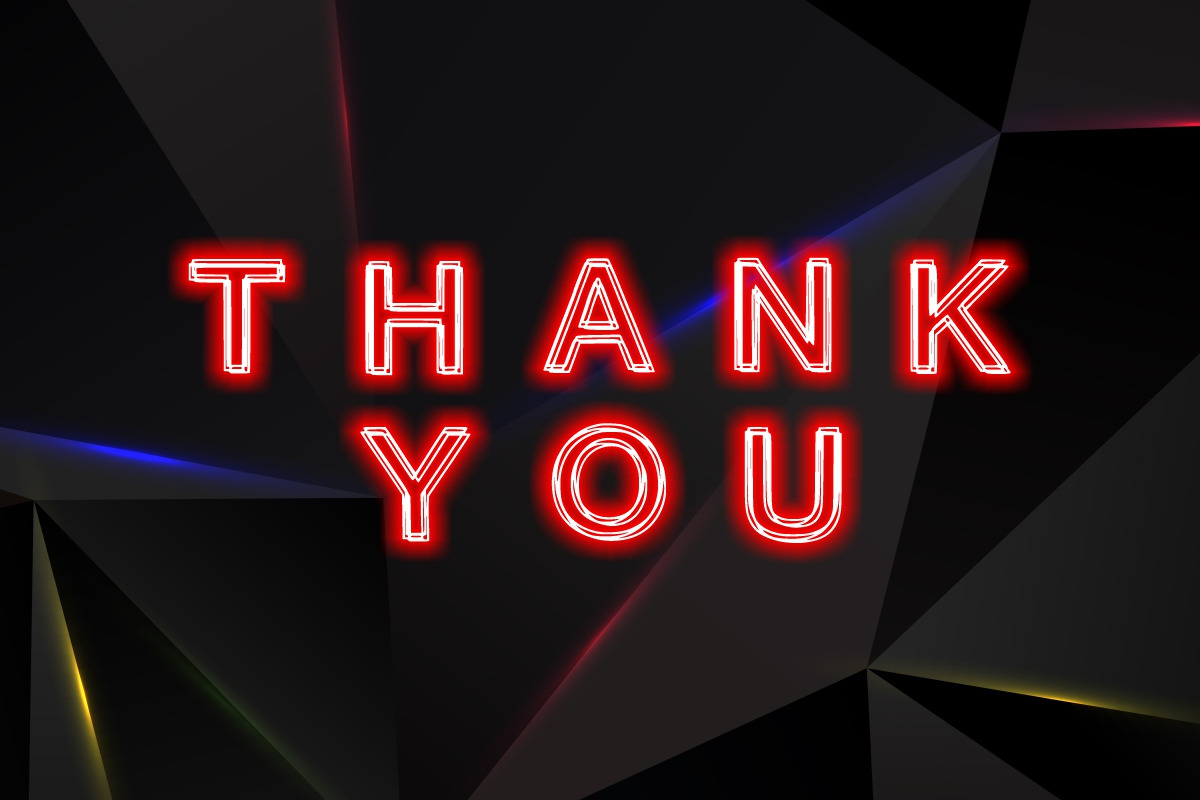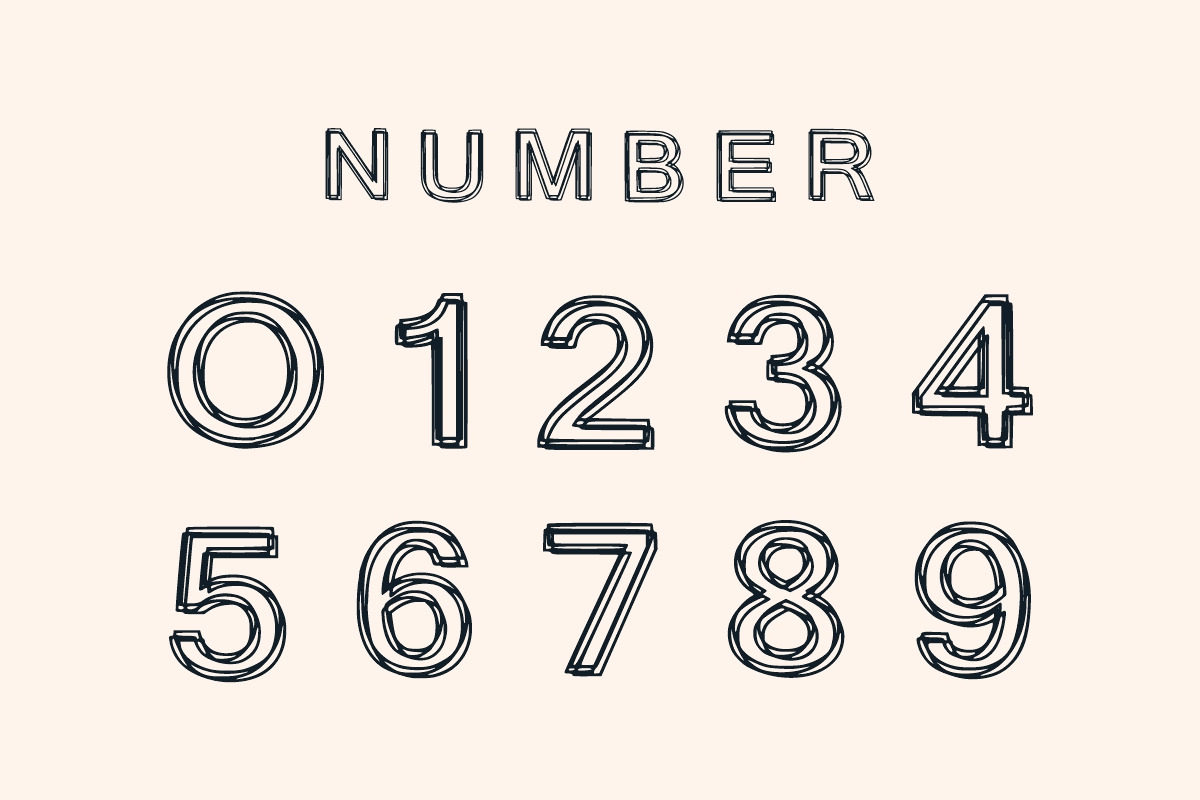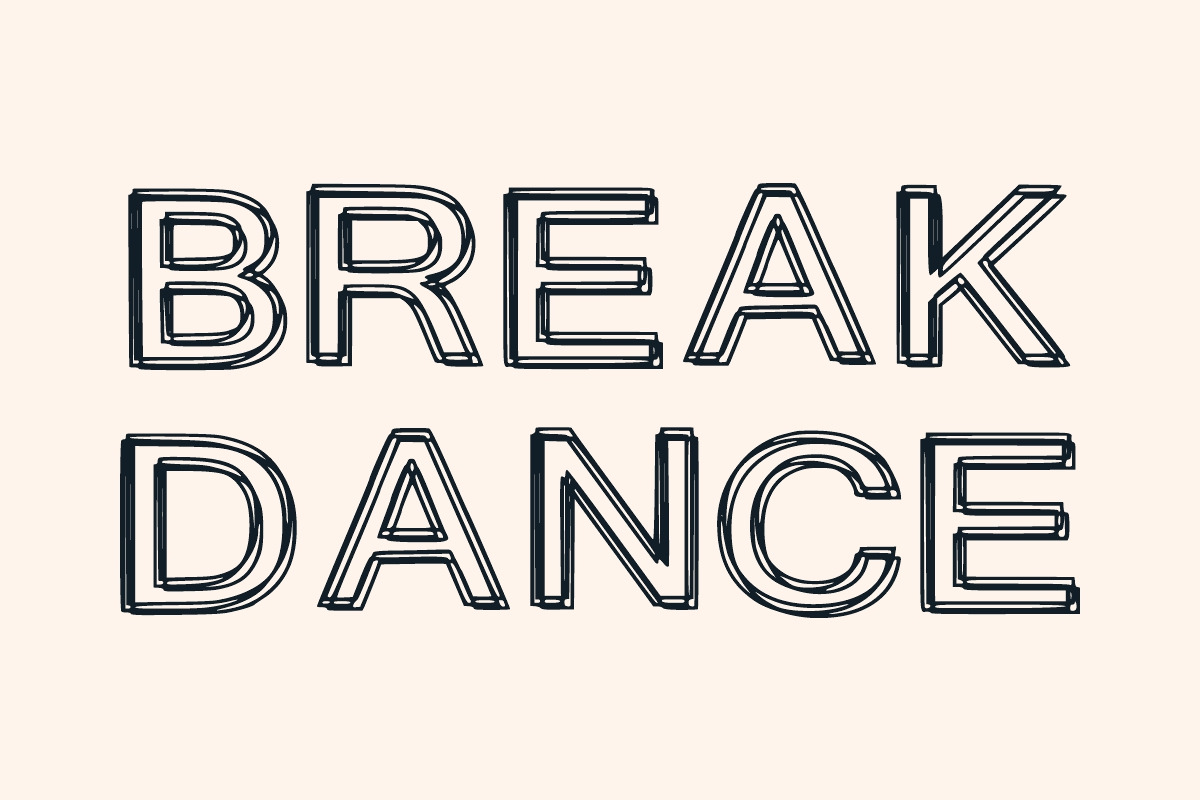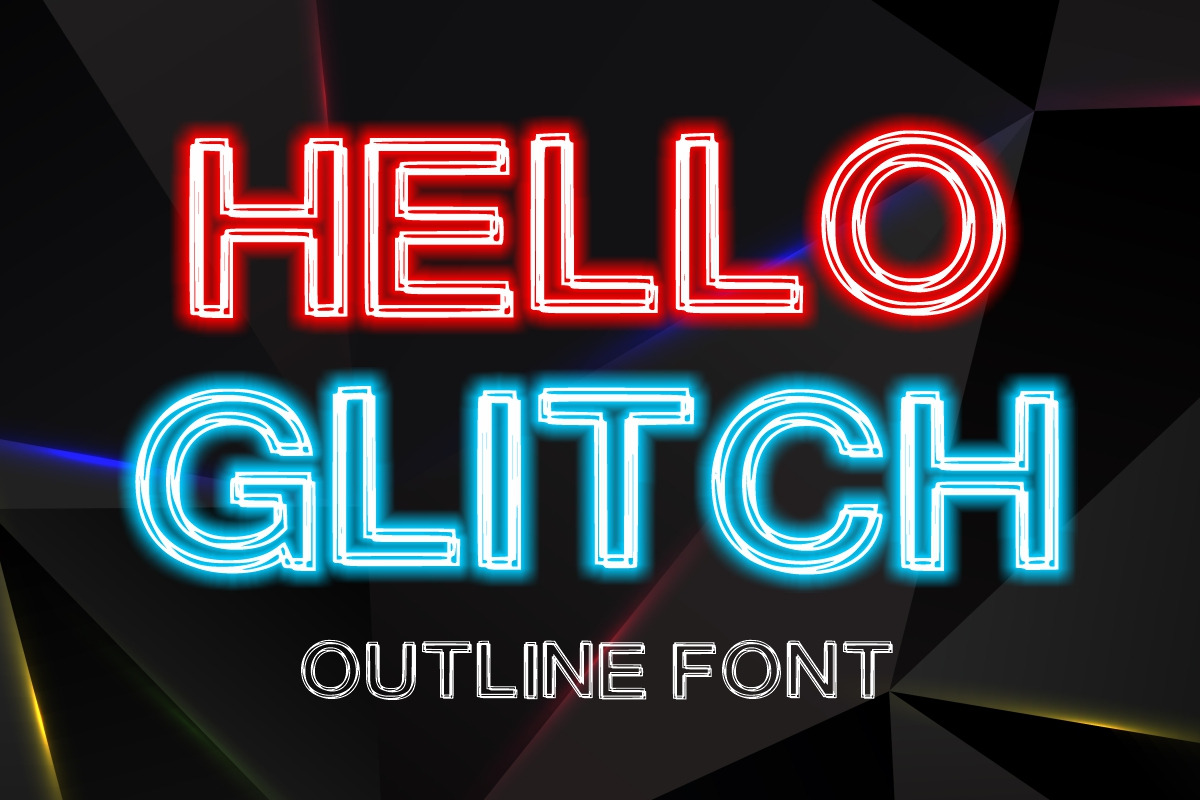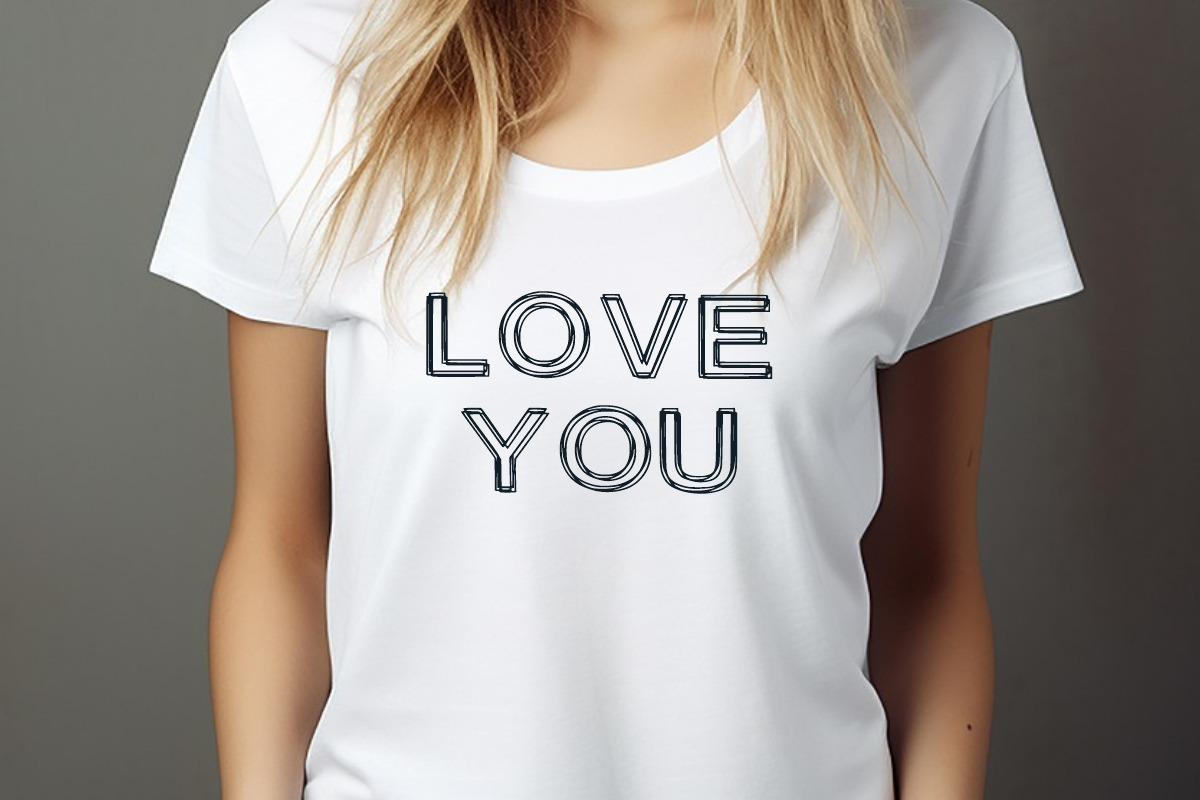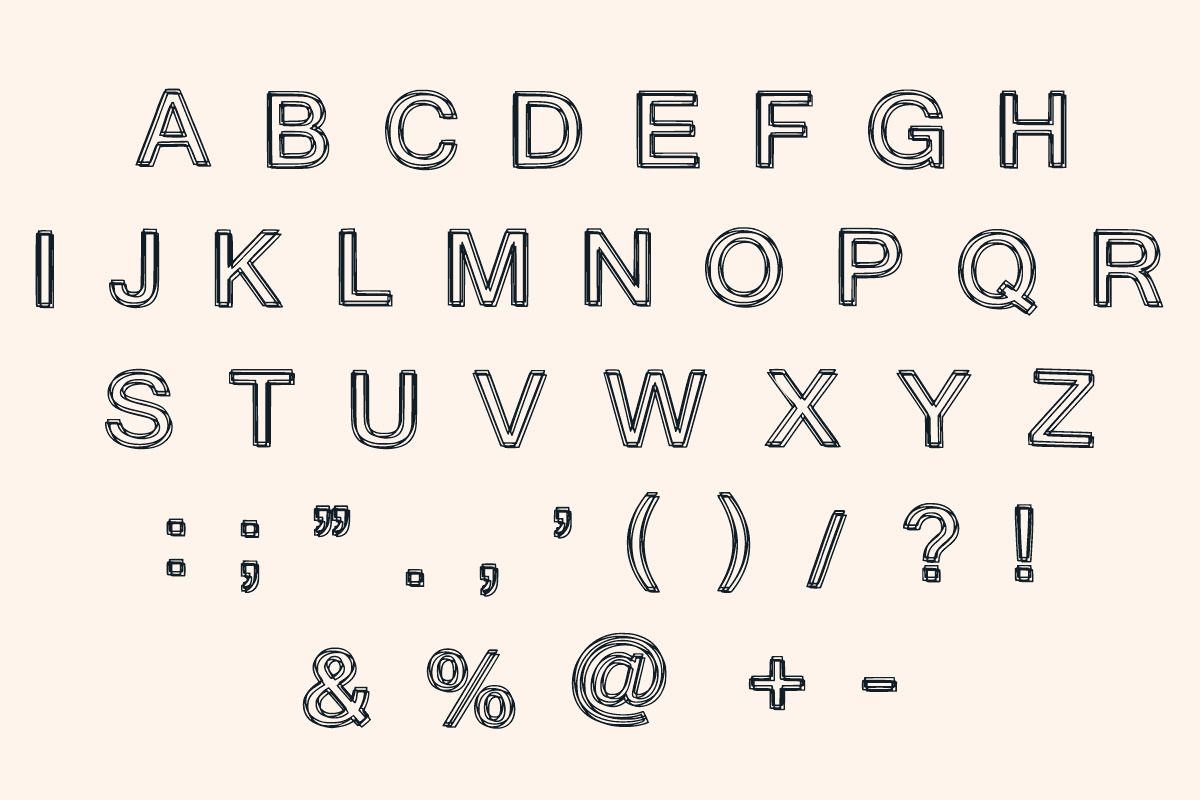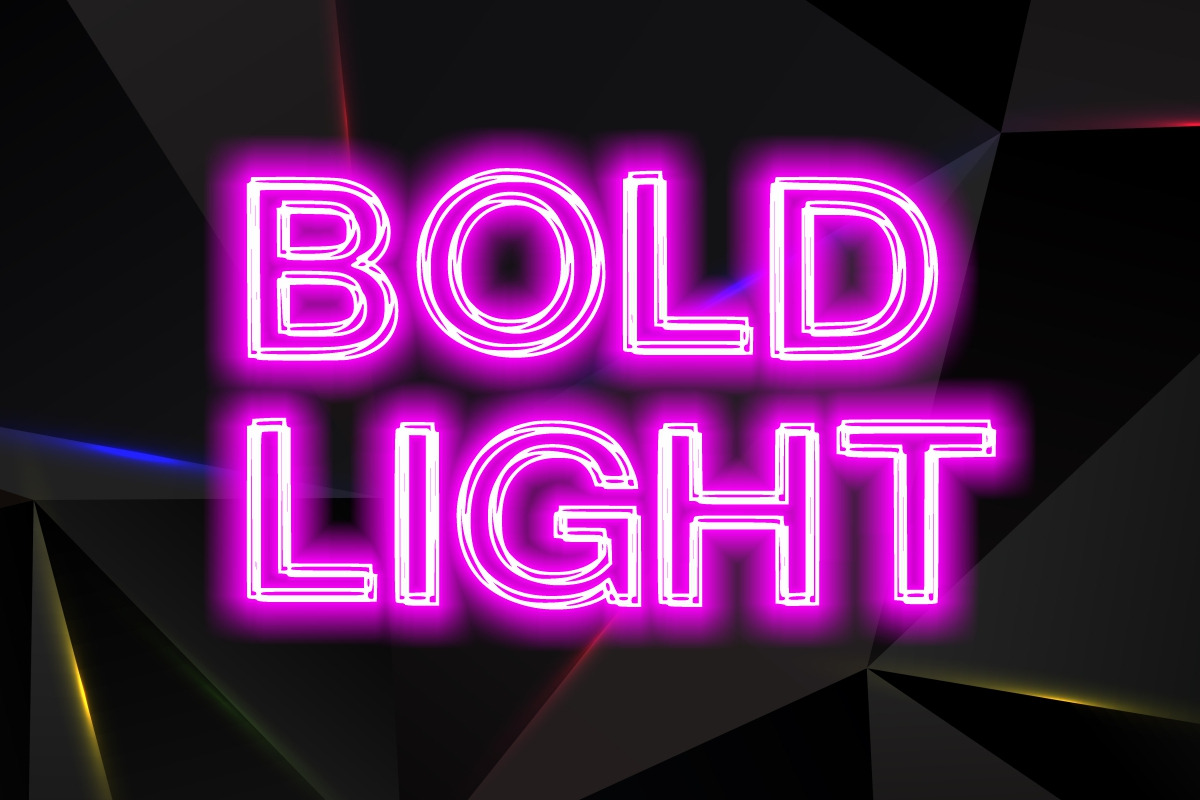
Hello Glitch Font
Hello Glitch is an outline font that is cool, easy-to-read and conveys impeccable friendliness. Whether you’re using it for crafts, digital design, presentations, or greeting cards, this font has the potential to become your favorite go-to font, no matter the occasion!